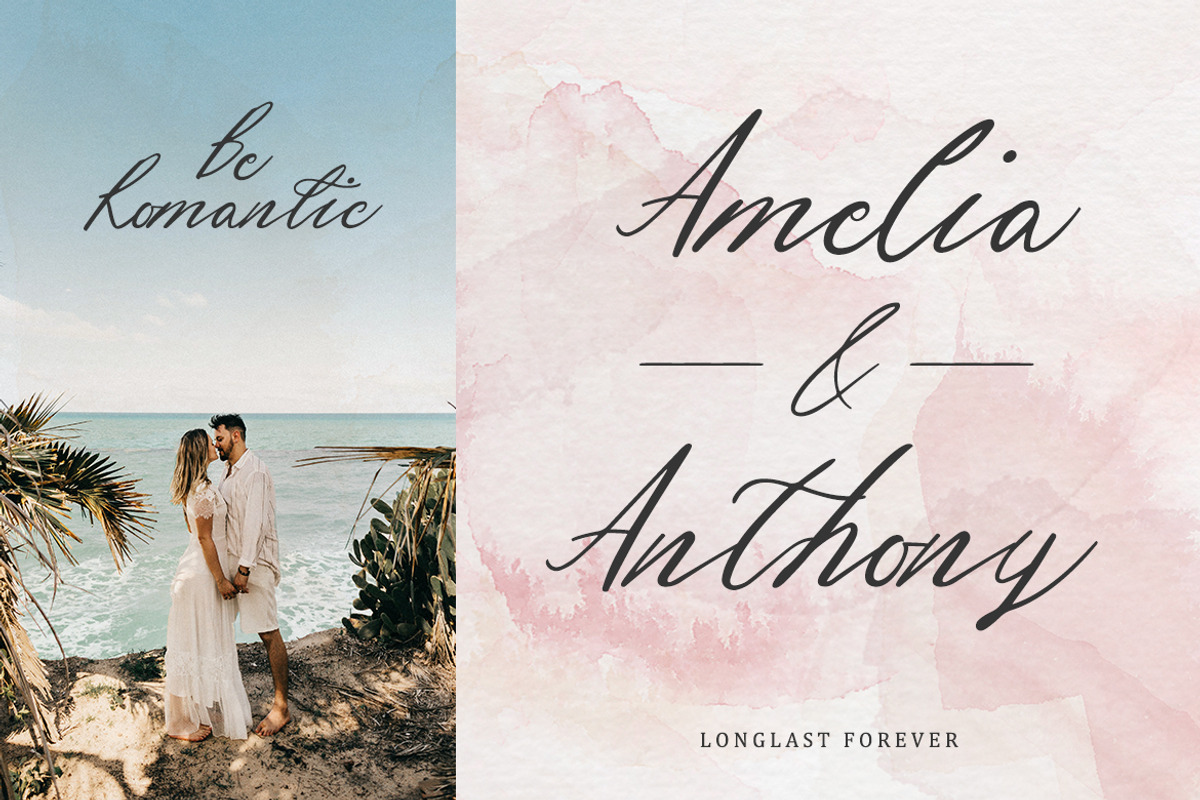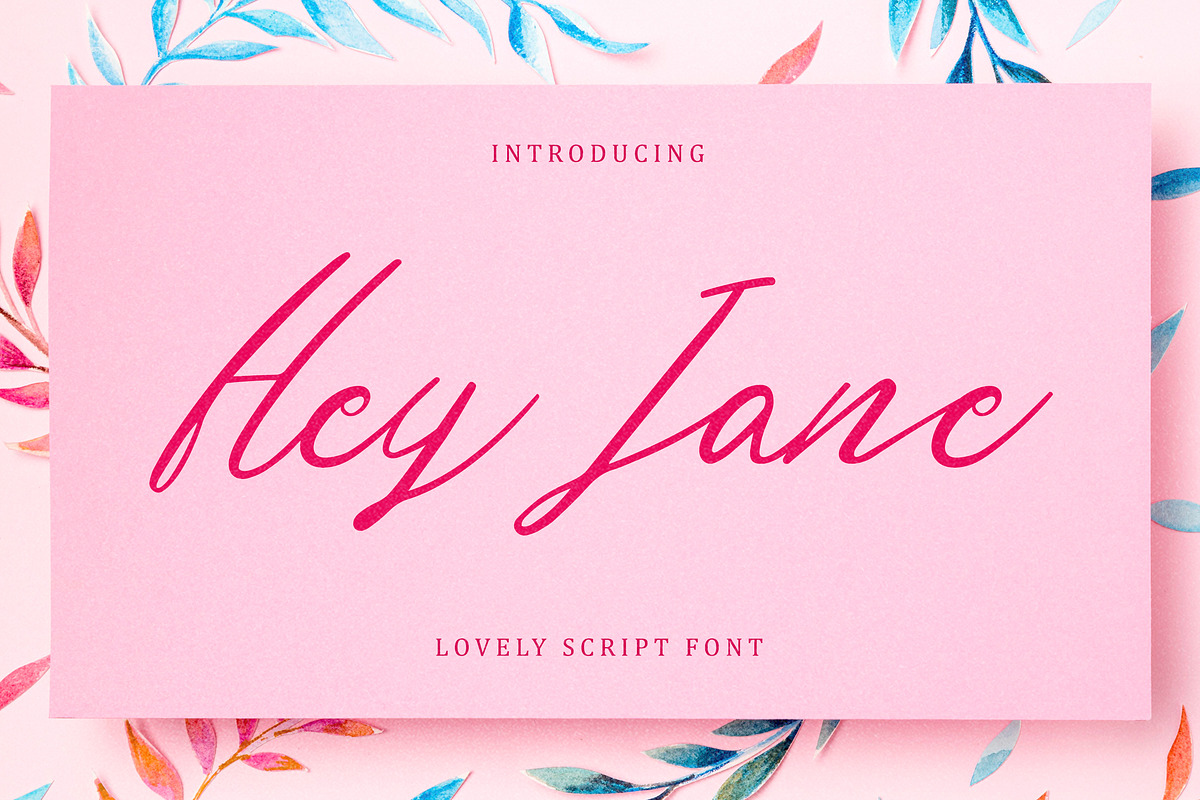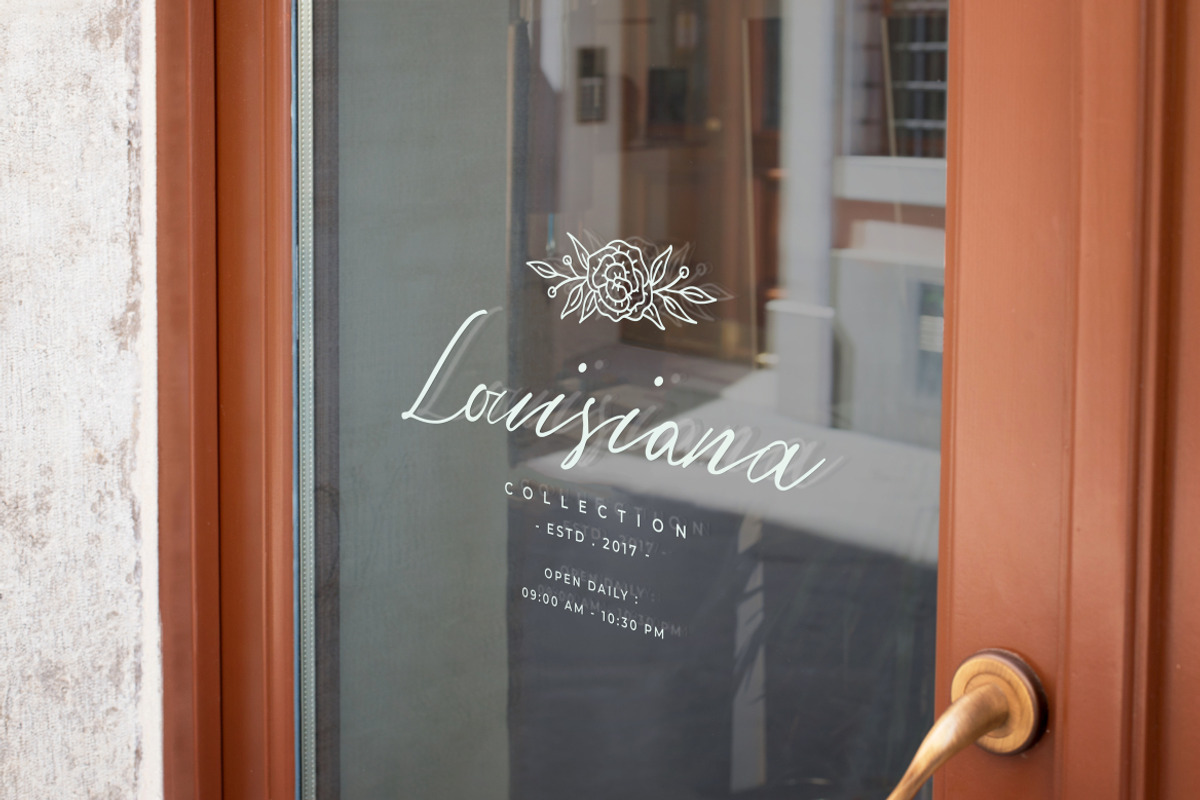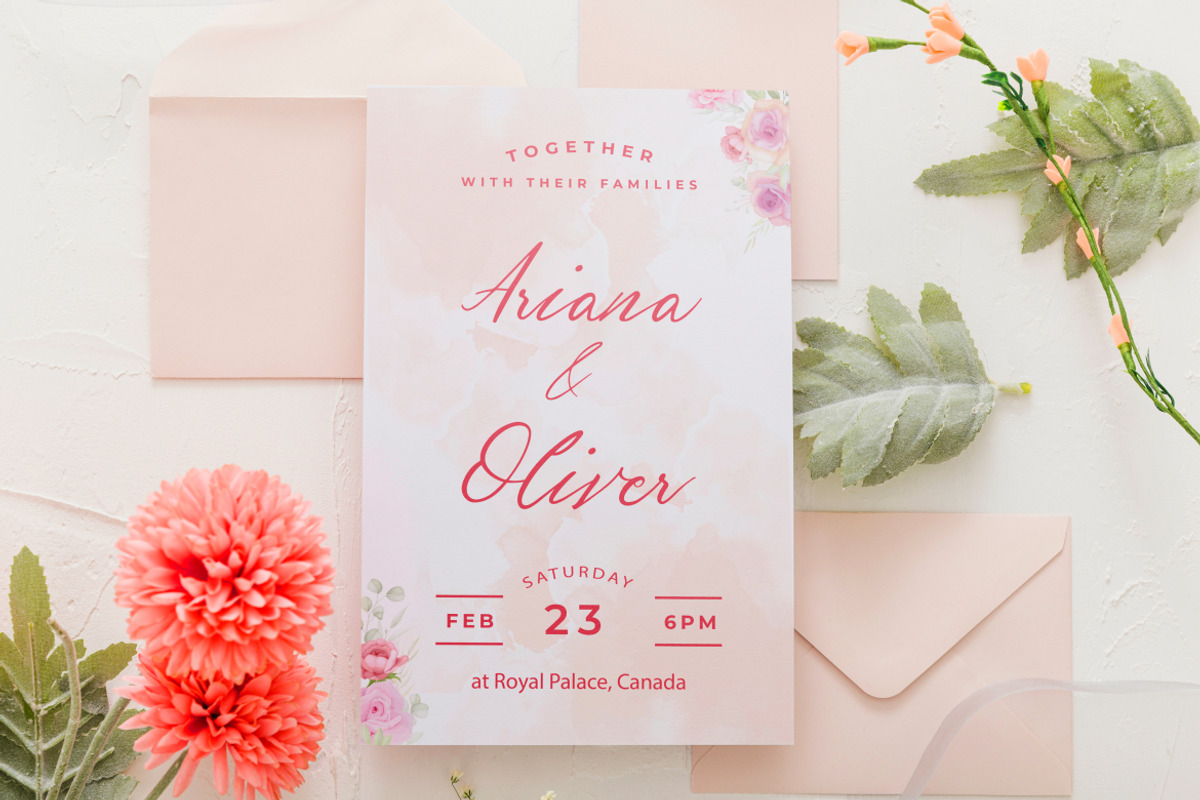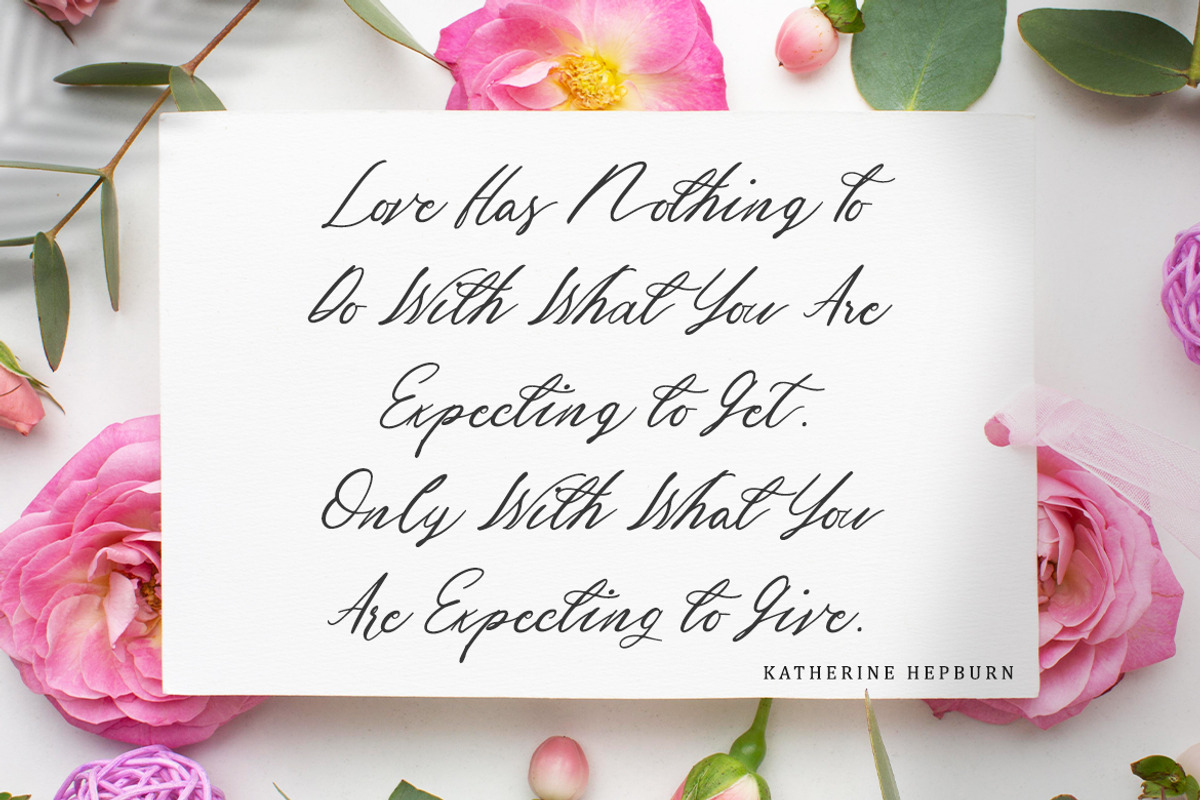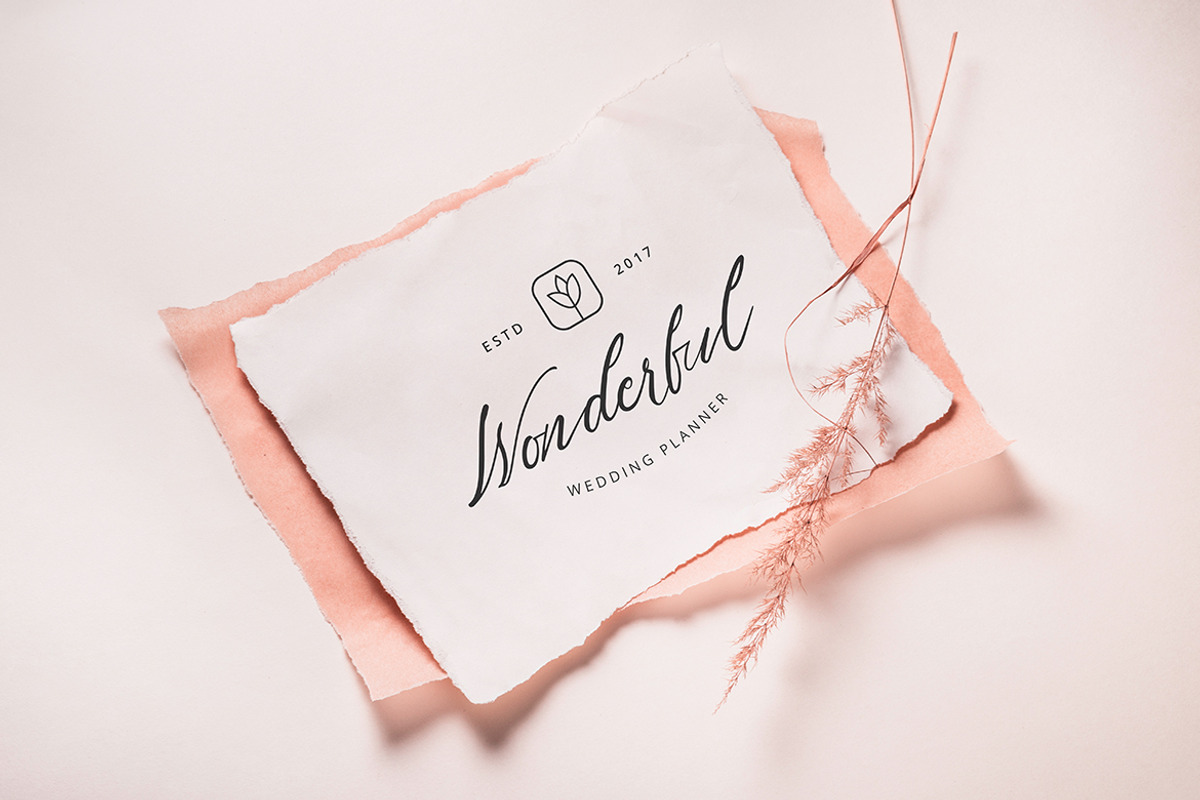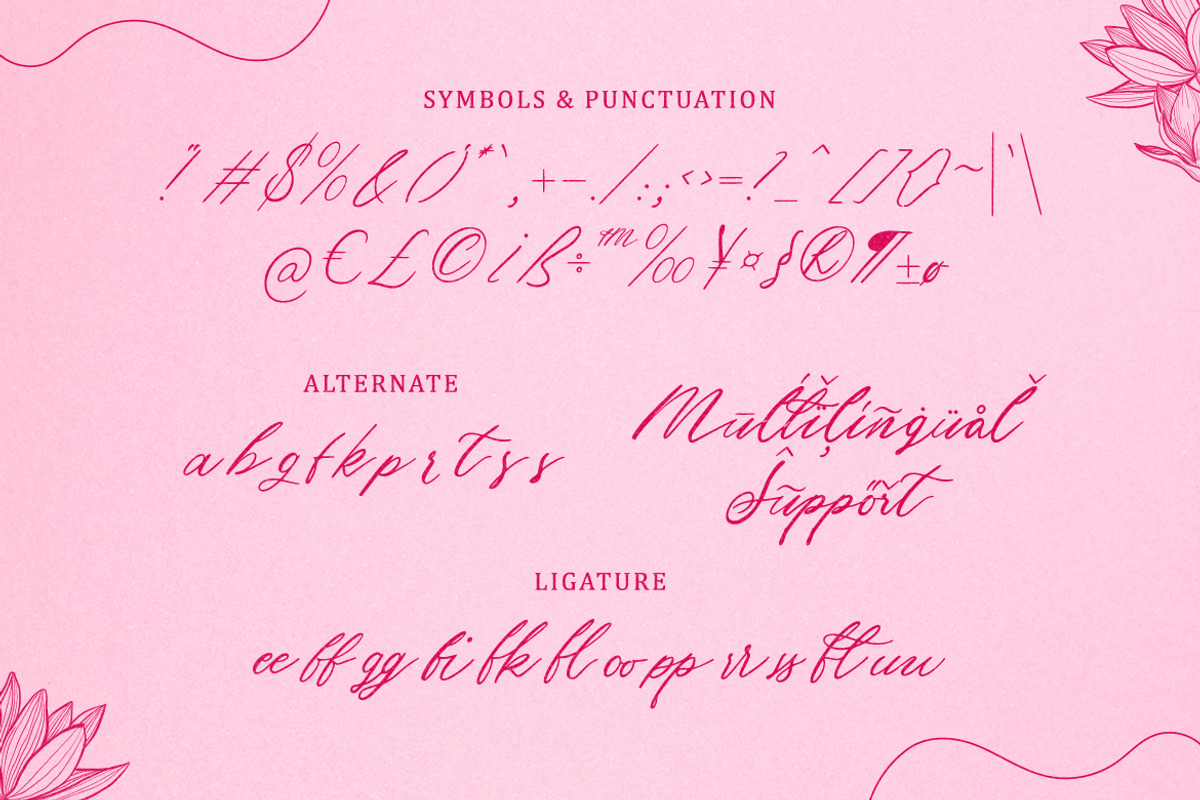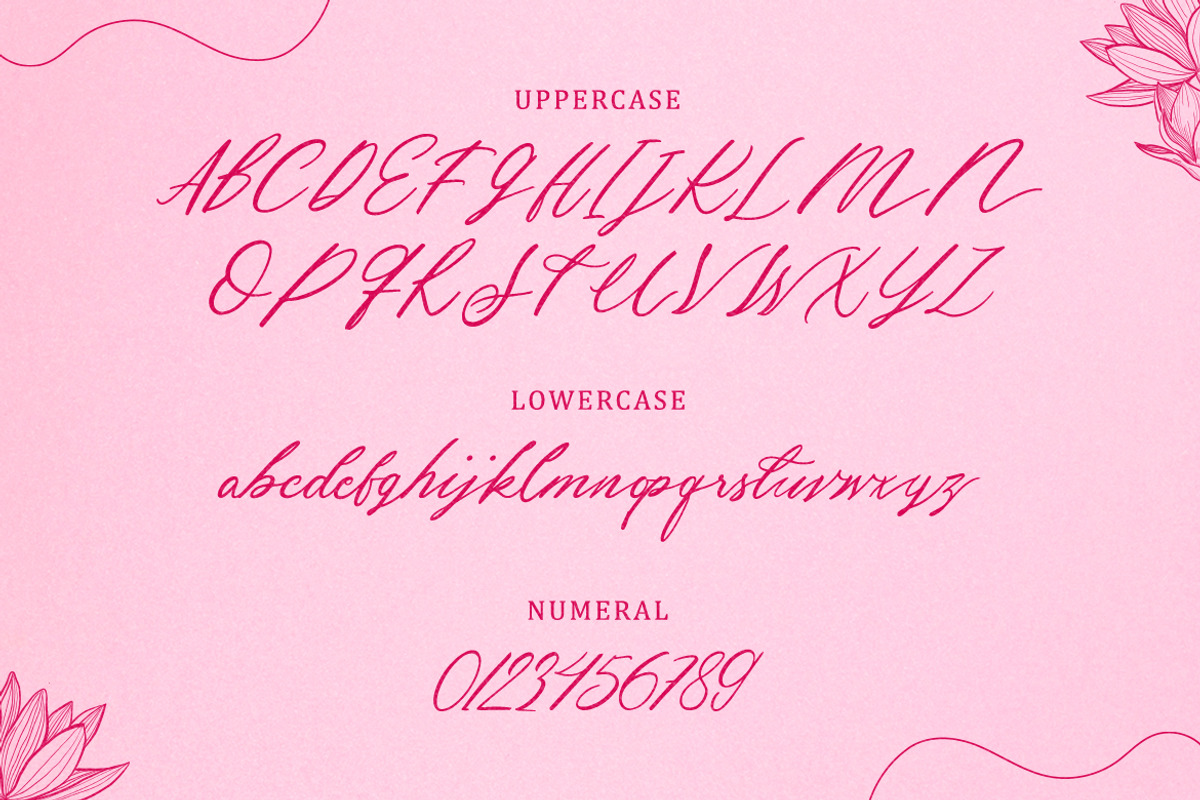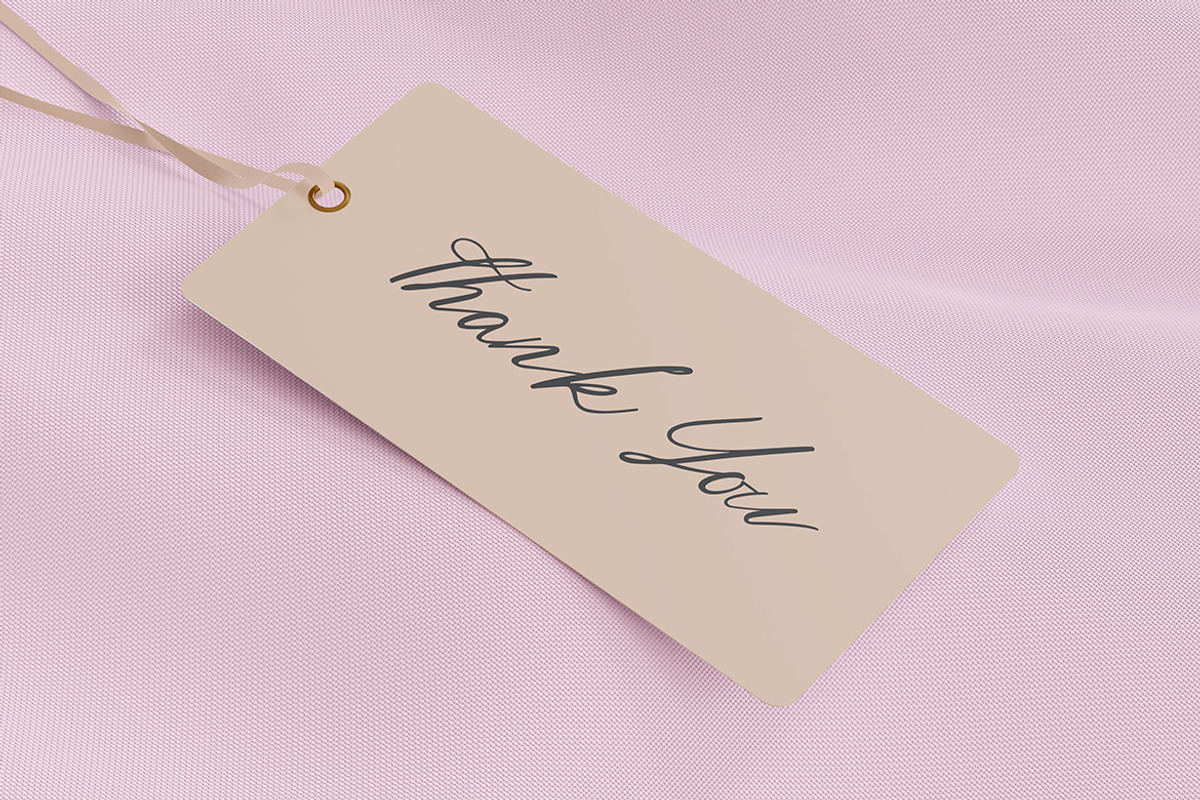
Hey Jane - Lovely Script
Hey Jane is a beautiful handwritten typeface. It has a natural writing style with a great readability. It’s perfect for adding a natural touch to your beautiful and luxurious designs.
- Symbols & Punctuation
- Numeral